Journalist Andrey Zakharov The Russian Ministry of Justice believes Andrei Zakharov as a foreign agent. And according to the Russian we have to mention that even if we are sharing the cover of Andrei’s book researched ethics and aesthetics of blockchain for many years and authored an investigative piece into the theft of $400 million from a cryptocurrency exchange. The investigation was published by the Individuum publishing house, with its cover set in Quattrocode and Transgender Grotesk.
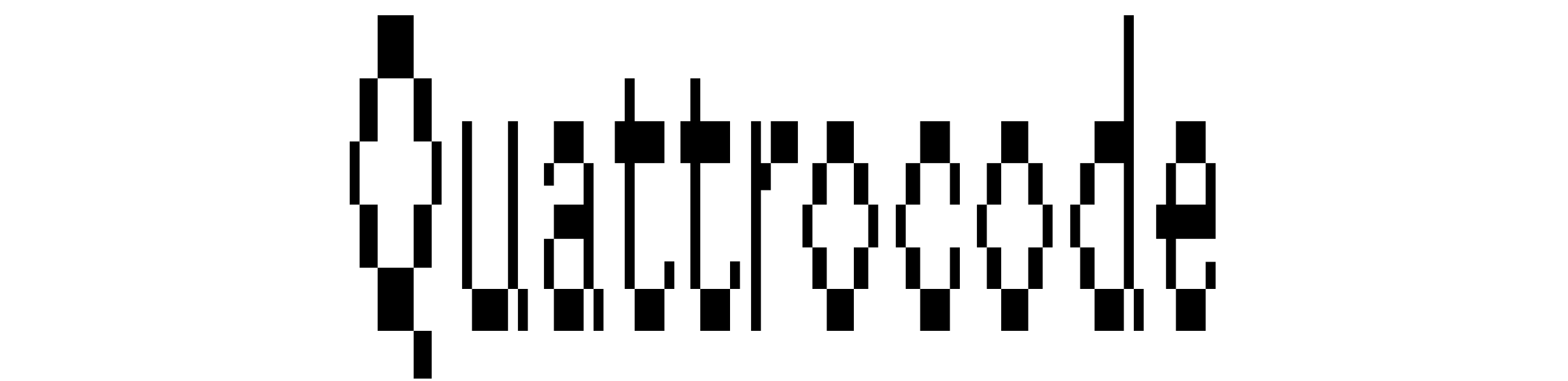
Quattrocode makes you think of a barcode; it gets friendlier in slanted styles, capable of imitating, let’s say, the texture of a Christmas-themed sweater. The typeface is a great fit for display purposes, but it is also well suitable for being used in small text blocks.
Distinctive, abrupt, somewhat sharp, half-display Transgender Grotesk was designed for medium and large sizes. Executed in just one weight and with no contrast, the typeface is available in extended Cyrillic and Latin.